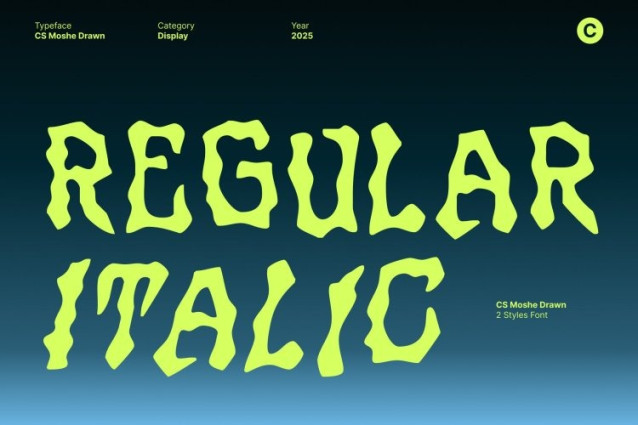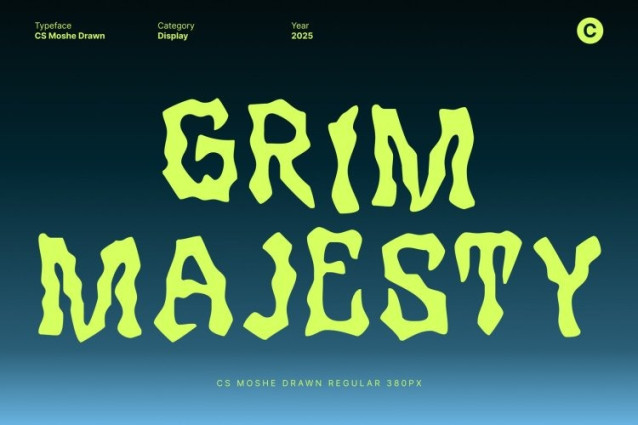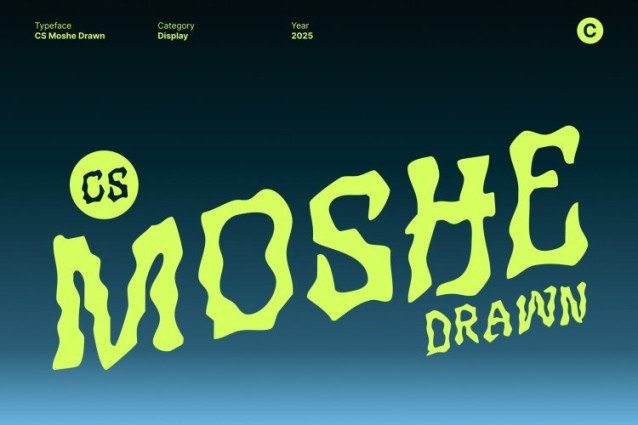
CS Moshe Drawn Font
CS Moshe Drawn Font This is a black metal-inspired display font designed to deliver a bold, intense visual impact. Its jagged, irregular shapes and sharp angles convey darkness, power, and rebellious energy. This typeface is perfect for designs that demand a strong, commanding presence and a dramatic aesthetic.
Hand-Drawn Texture for Raw, Expressive Style
The drawn effect adds a rough, etchy texture that enhances the font’s chaotic, underground vibe. Each letter feels handcrafted, with subtle imperfections and organic details that create a sense of motion and aggression. This artisanal touch makes visually engaging and unmistakably expressive.
Ideal for Busy, Edgy, and Serious Designs
This font thrives in high-intensity visual applications, from band logos and album covers to posters, merchandise, and alternative branding projects. Its bold and aggressive design ensures that even complex layouts remain readable while exuding a raw, rebellious character.
A Distinctive Typeface for Extreme Expression
Combining black metal aesthetics with hand-drawn artistry, delivers a unique typographic voice. Its etchy, irregular forms make it ideal for designers seeking a font that embodies intensity, individuality, and extreme creative expression. Whether for music, alternative culture, or edgy visual projects, this typeface leaves a lasting impression.